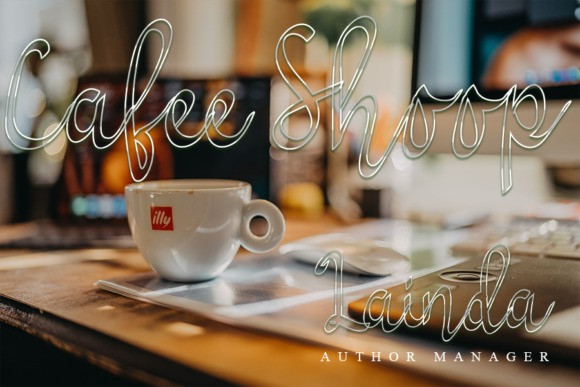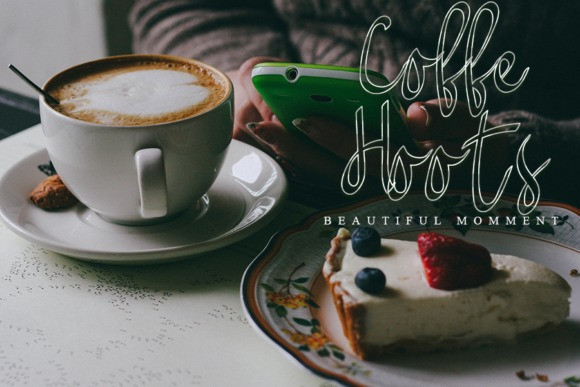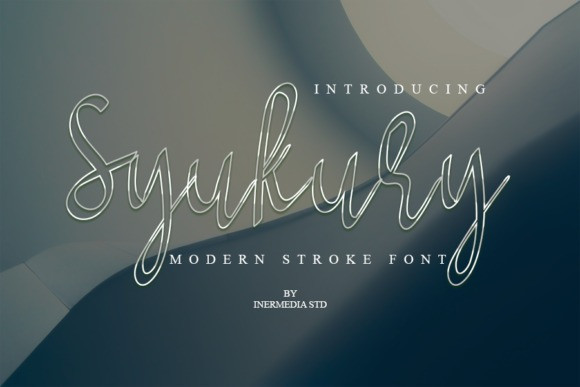
Syukury Script Font
Syukury is a charming handwritten font. It is designed using a stroke as its border. Syukury will look stunning on wedding invitations, thank you cards, quotes, greeting cards, logos, business cards and every other design which needs a handwritten touch.